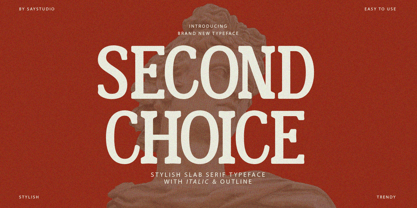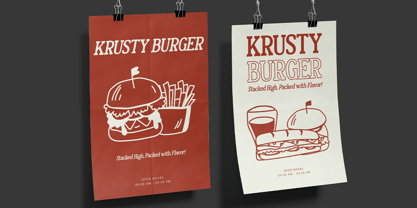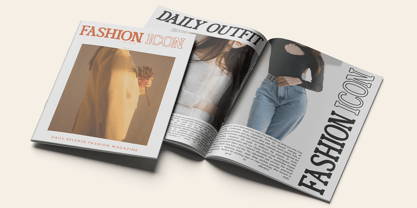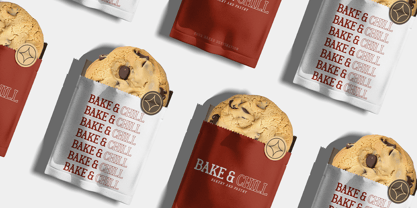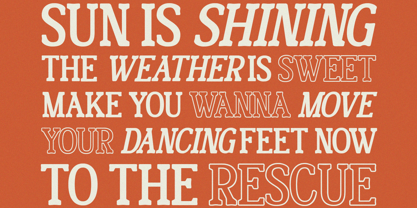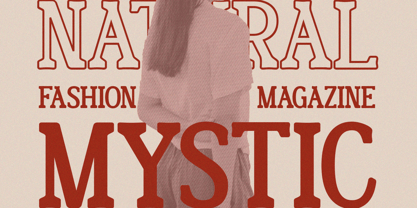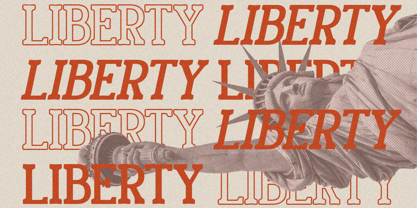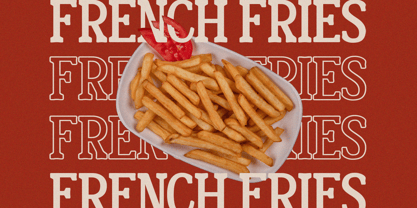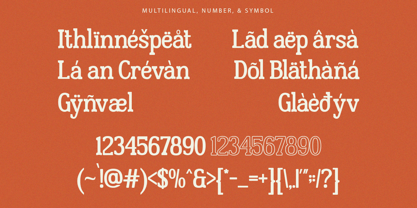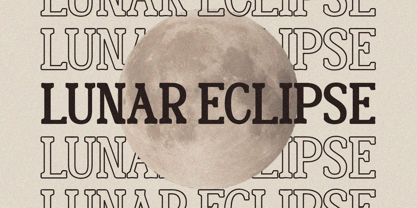
Second Choice
by Say Studio
The Second Choice Font Family was designed by Mussyayin and published by Say Studio. Second Choice contains 3 styles and family package options. More about this family
Second Choice is a Stylish Slab Serif Font with 3 style , developed from scans of vintage letterpress advertising.
Second Choice evokes a time when advertising was verbose and energetic. And helps to create stunning logos, quotes, posts, blog posts, branding projects, magazine imagery, wedding invitations, and much more.
Features:
- Second Choice
- Second Italic
- Second Outline
- Multi Language Support